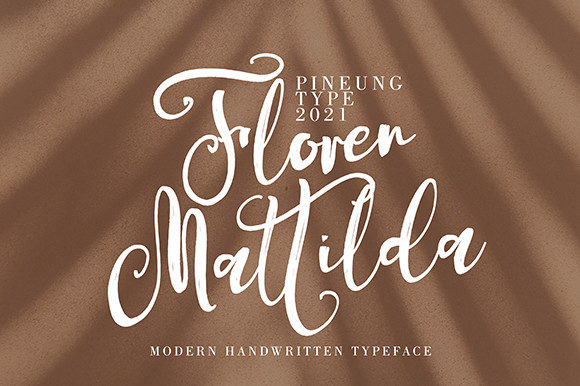
Discover the Elegance of Floren Mattilda Font: A Timeless Choice for Designers and Crafters
Are you on the hunt for a font that exudes elegance and sophistication? Look no further than the stunning Floren Mattilda font. This beautiful, flowing handwritten font is sure to capture your heart with its incredibly distinct and timeless style. In this article, we’ll dive into the world of Floren Mattilda, exploring its unique features, uses, and benefits for designers and crafters alike.
What is Floren Mattilda Font?
Floren Mattilda is a gorgeous, handwritten font that boasts an elegant touch, making it perfect for a wide range of projects. Its flowing lines and curves create a sense of movement and fluidity, adding a touch of sophistication to any design. Whether you’re working on a logo, branding materials, or a craft project, Floren Mattilda is sure to impress.
Key Features of Floren Mattilda Font
- Unique and Timeless Style: Floren Mattilda’s distinct style sets it apart from other fonts, making it a great choice for designers looking to create something truly special.
- Elegant Touch: The font’s elegant lines and curves add a touch of sophistication to any design, making it perfect for high-end projects.
- Flowing Handwritten Script: Floren Mattilda’s flowing script creates a sense of movement and fluidity, adding visual interest to any design.
- Versatile: This font can be used for a wide range of projects, from logos and branding materials to craft projects and more.
Uses for Floren Mattilda Font
Floren Mattilda is a versatile font that can be used for a variety of projects, including:
- Logo Design: Create a stunning logo that stands out from the crowd with Floren Mattilda’s unique and elegant style.
- Branding Materials: Use Floren Mattilda to create cohesive branding materials, such as business cards, letterheads, and more.
- Craft Projects: Add a touch of elegance to your craft projects, such as handmade cards, invitations, and scrapbooking pages.
- Digital Designs: Use Floren Mattilda in digital designs, such as social media graphics, blog headers, and more.
Benefits of Using Floren Mattilda Font
So why choose Floren Mattilda font for your next project? Here are just a few benefits:
- Stand Out from the Crowd: Floren Mattilda’s unique style ensures that your design will stand out from the crowd.
- Elegance and Sophistication: Add a touch of elegance and sophistication to your design with Floren Mattilda’s flowing lines and curves.
- Easy to Read: Despite its elegant style, Floren Mattilda is easy to read, making it perfect for body text and headlines.
- Time-Saving: With Floren Mattilda, you can create stunning designs in no time, saving you time and effort.
Tips for Using Floren Mattilda Font
To get the most out of Floren Mattilda, here are a few tips:
- Pair with a Sans-Serif Font: Pair Floren Mattilda with a sans-serif font for a striking contrast.
- Use for Headlines and Titles: Use Floren Mattilda for headlines and titles to add a touch of elegance and sophistication.
In conclusion, Floren Mattilda font is a stunning, elegant font that’s perfect for designers and crafters looking to add a touch of sophistication to their projects. With its unique and timeless style, flowing lines and curves, and versatility, Floren Mattilda is sure to become a favorite in your font collection. So why wait? Fall in love with Floren Mattilda and use it to create spectacular designs that stand out from the crowd!